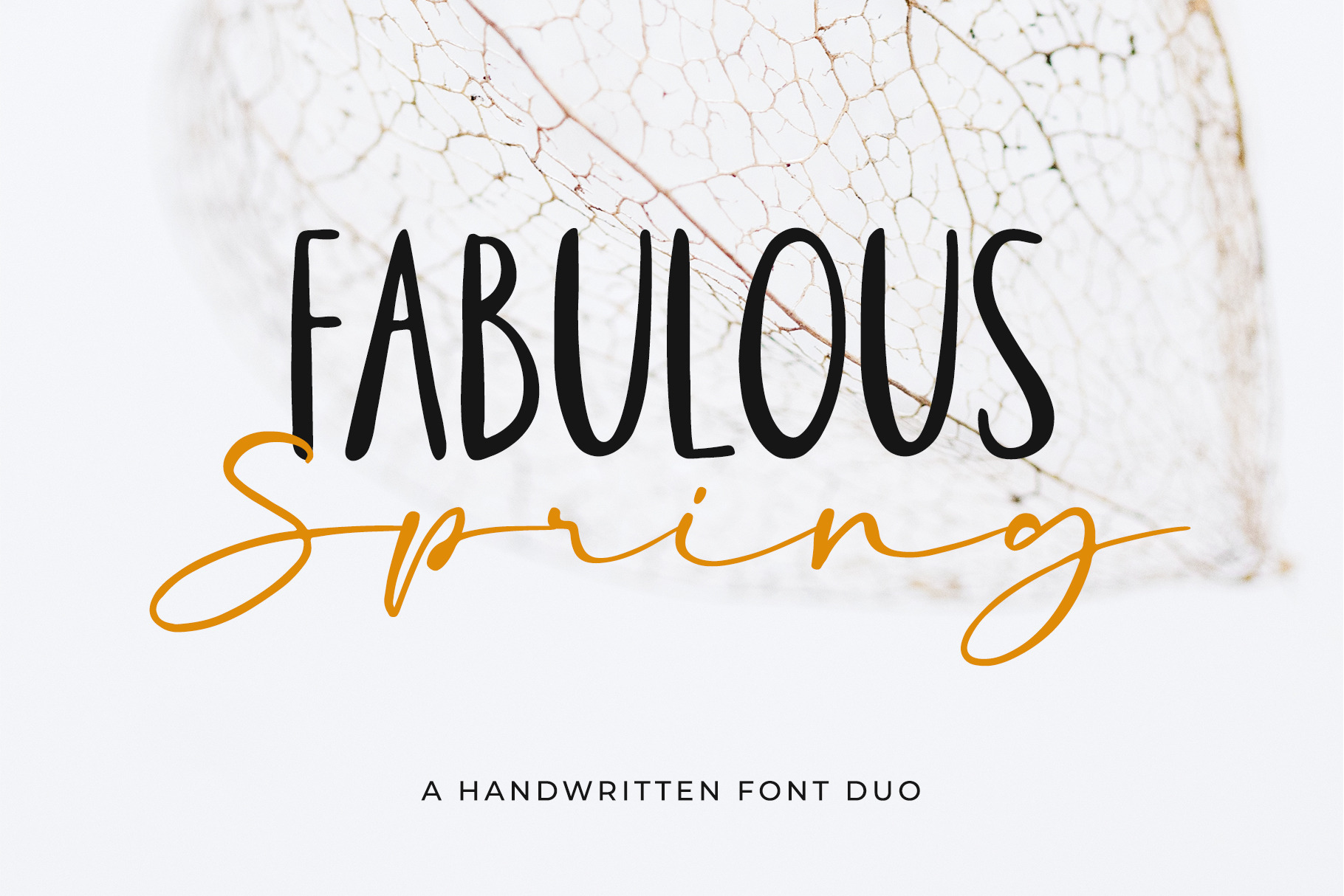
Fabulous Spring - A Font Duo
Fabulous Spring is a handwritten font duo. This Font duo is especially perfect for branding, logos, home decor signs, business cards, social media, advertisements and more!